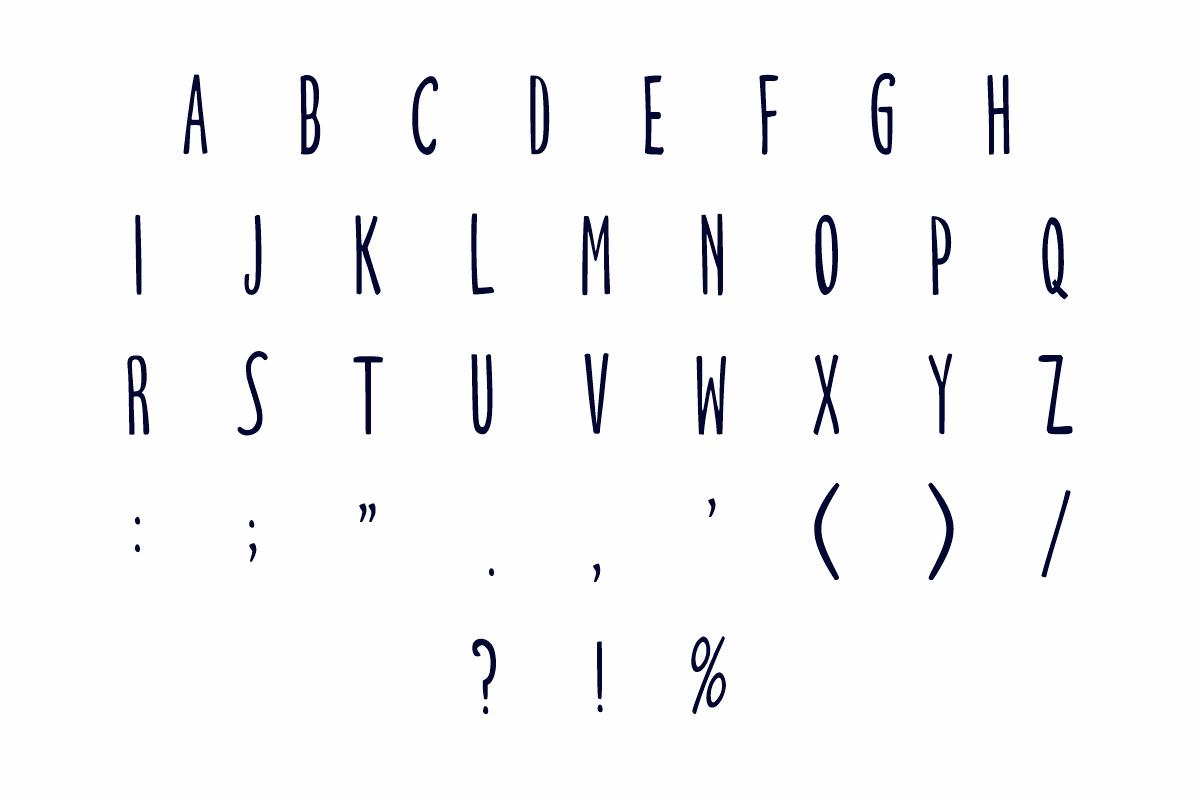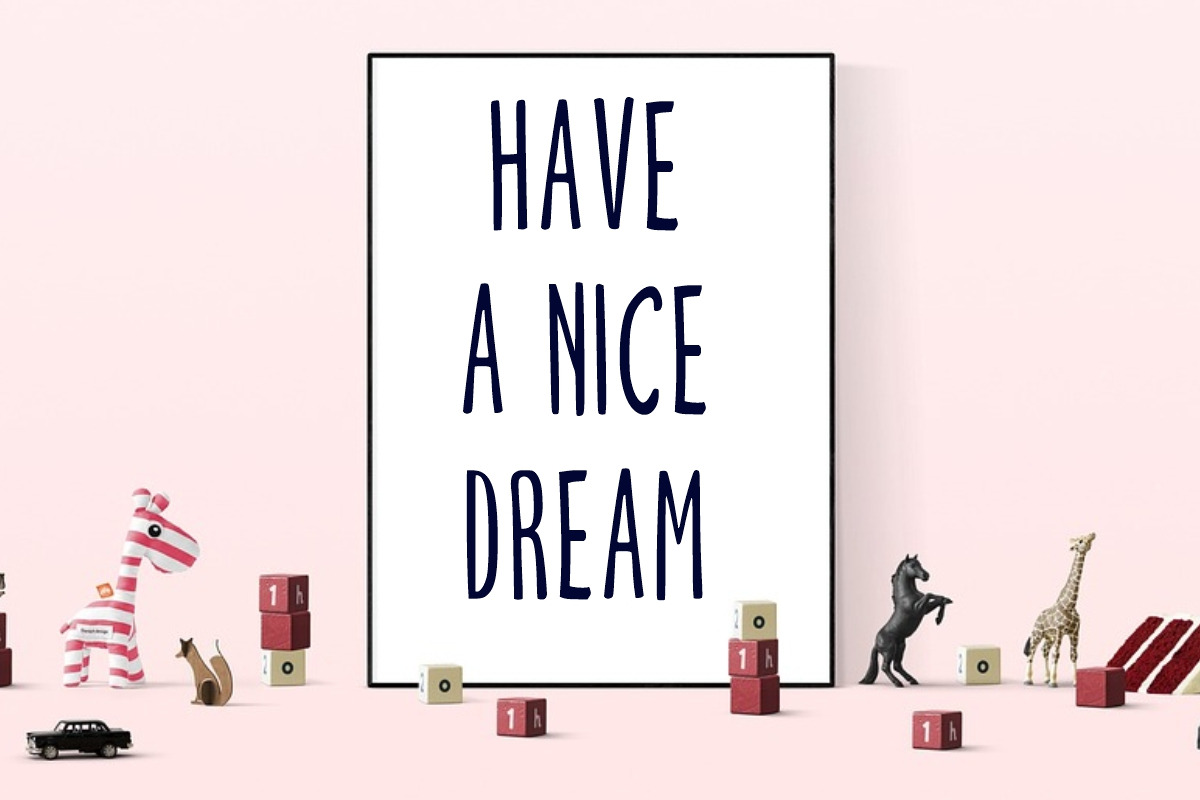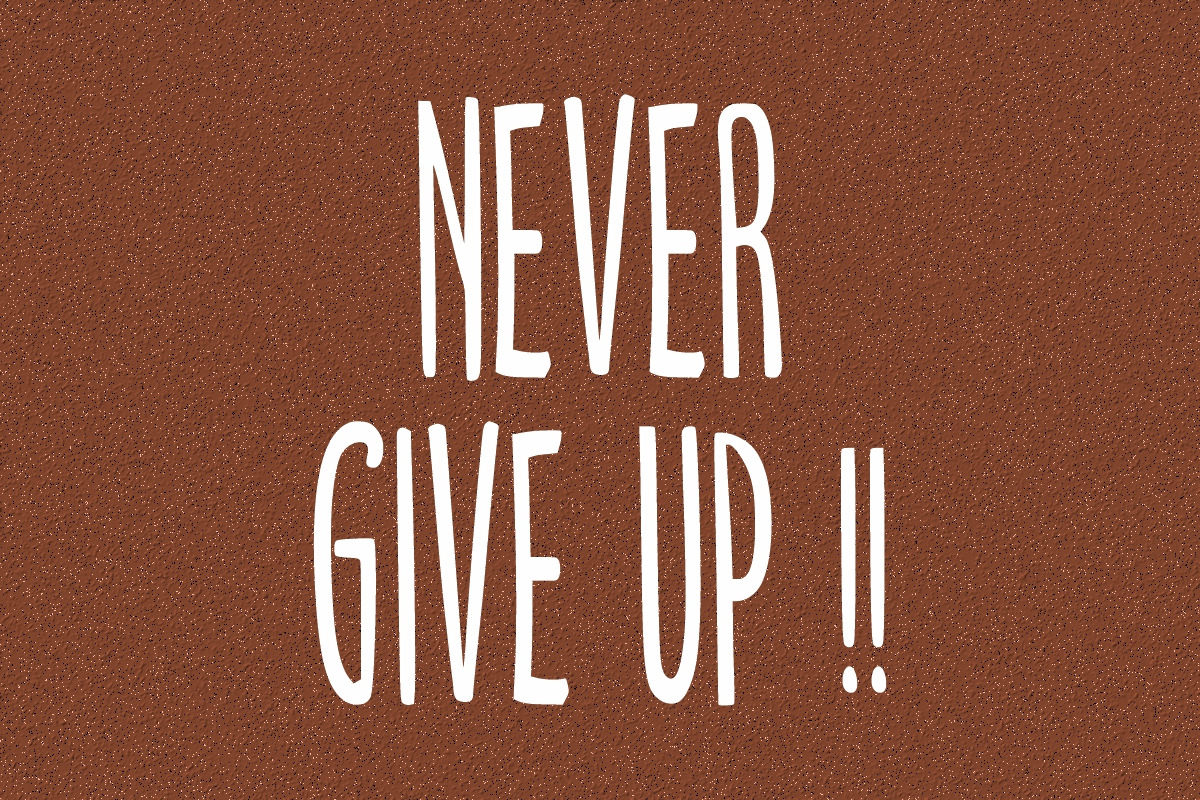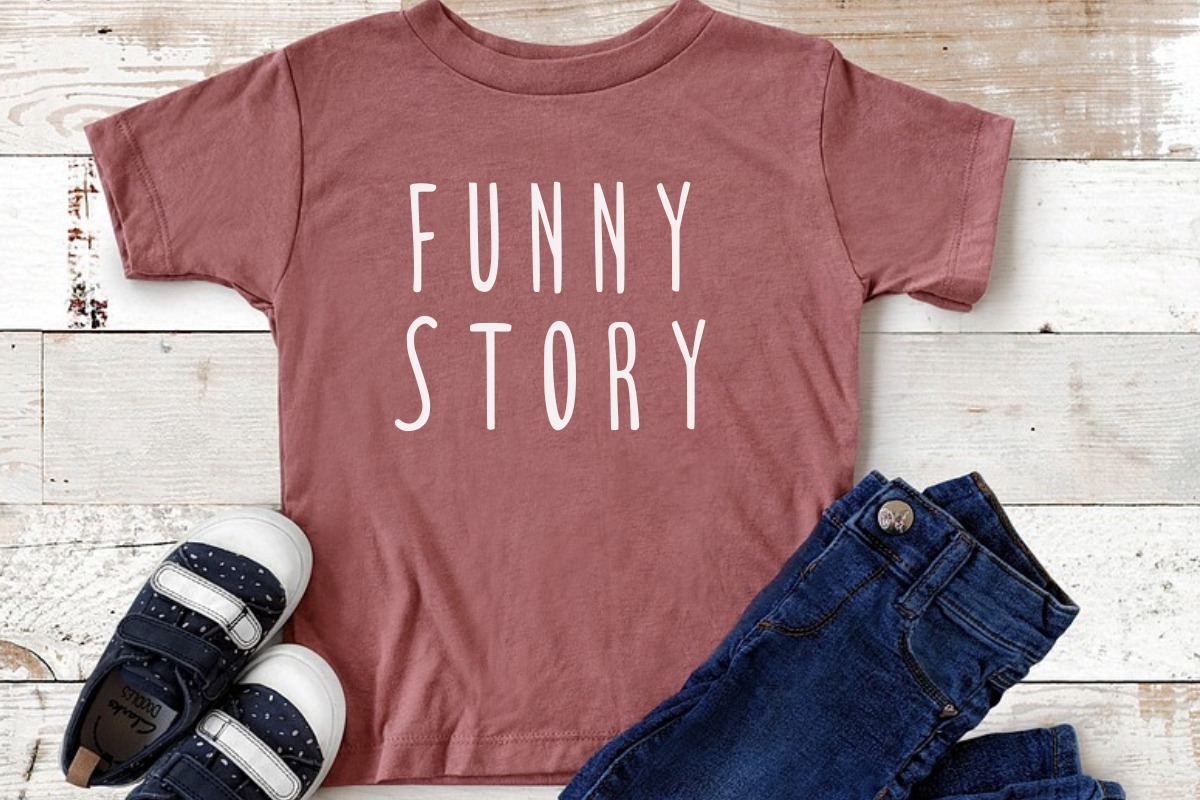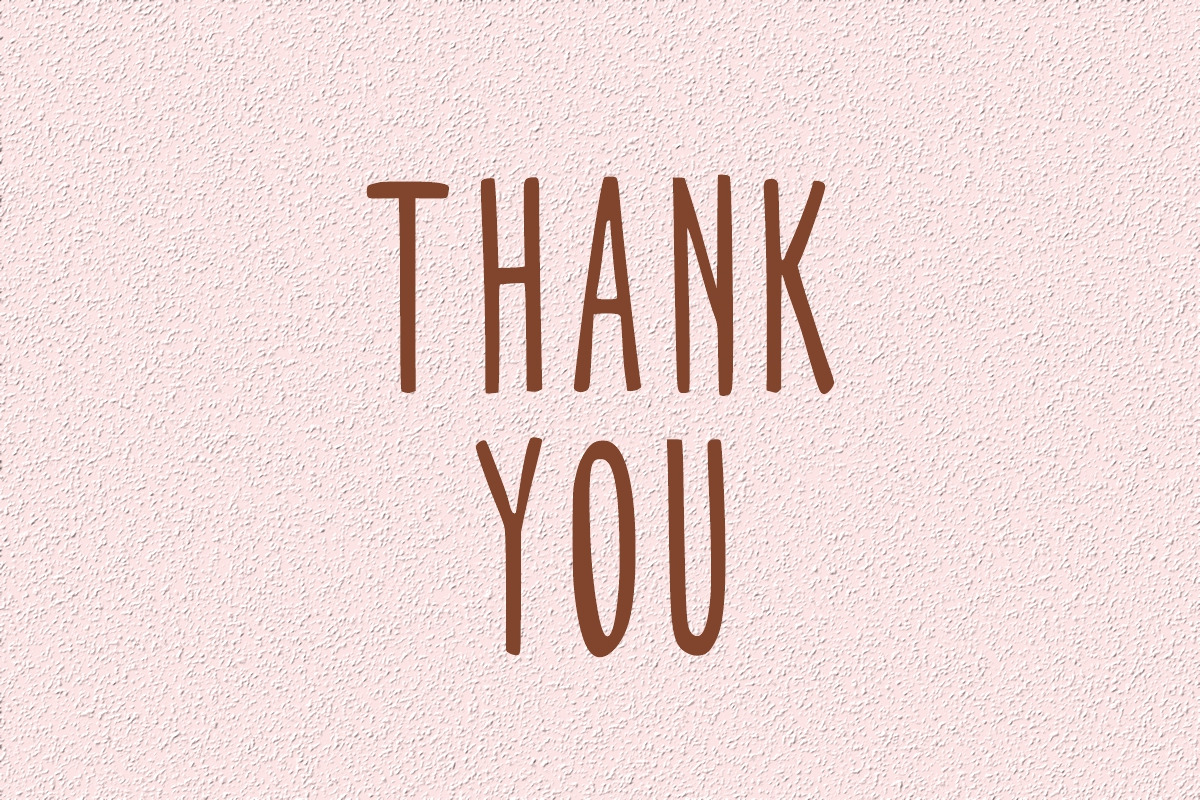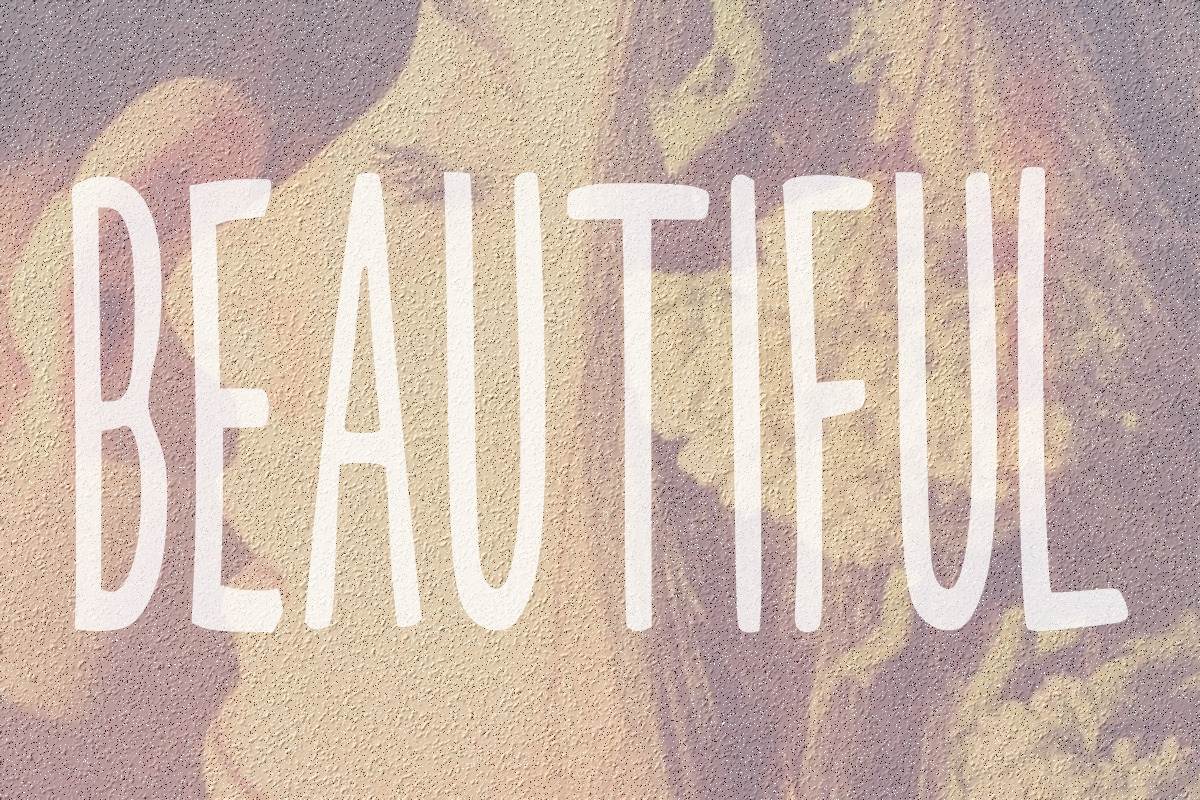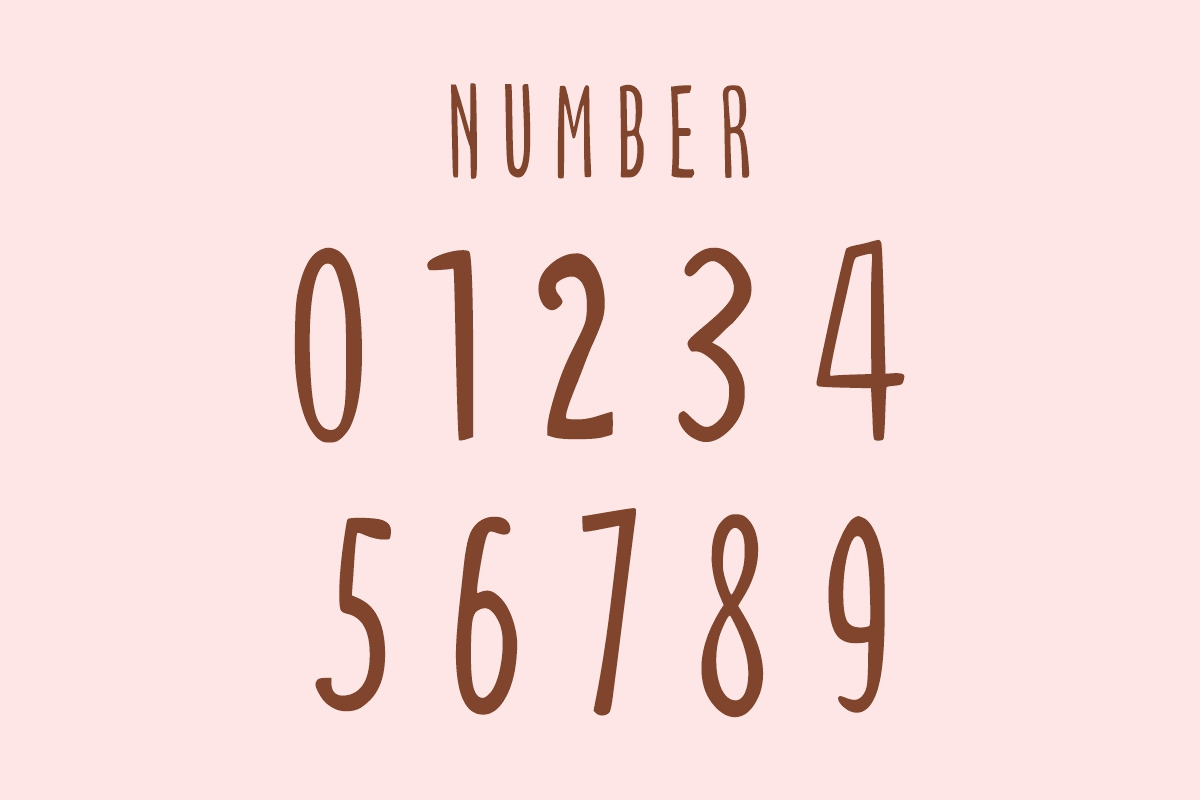
Love Story
Love Story is a cute, simple, and thin hand-drawn font. Its informal style and casual vibe will make this font a go-to choice for each of your creations that require a relaxed touch. It is suitable for any product packaging, invitation, quote, t-shirt, label, poster, logo that you wish to develop!